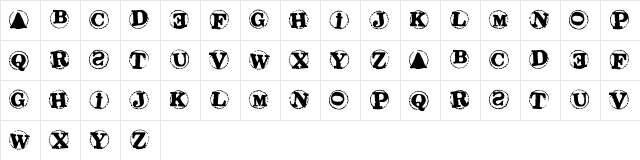
Design Context for rated b
rated b is a composed and adaptable typeface that performs quietly and consistently across a wide range of design contexts.